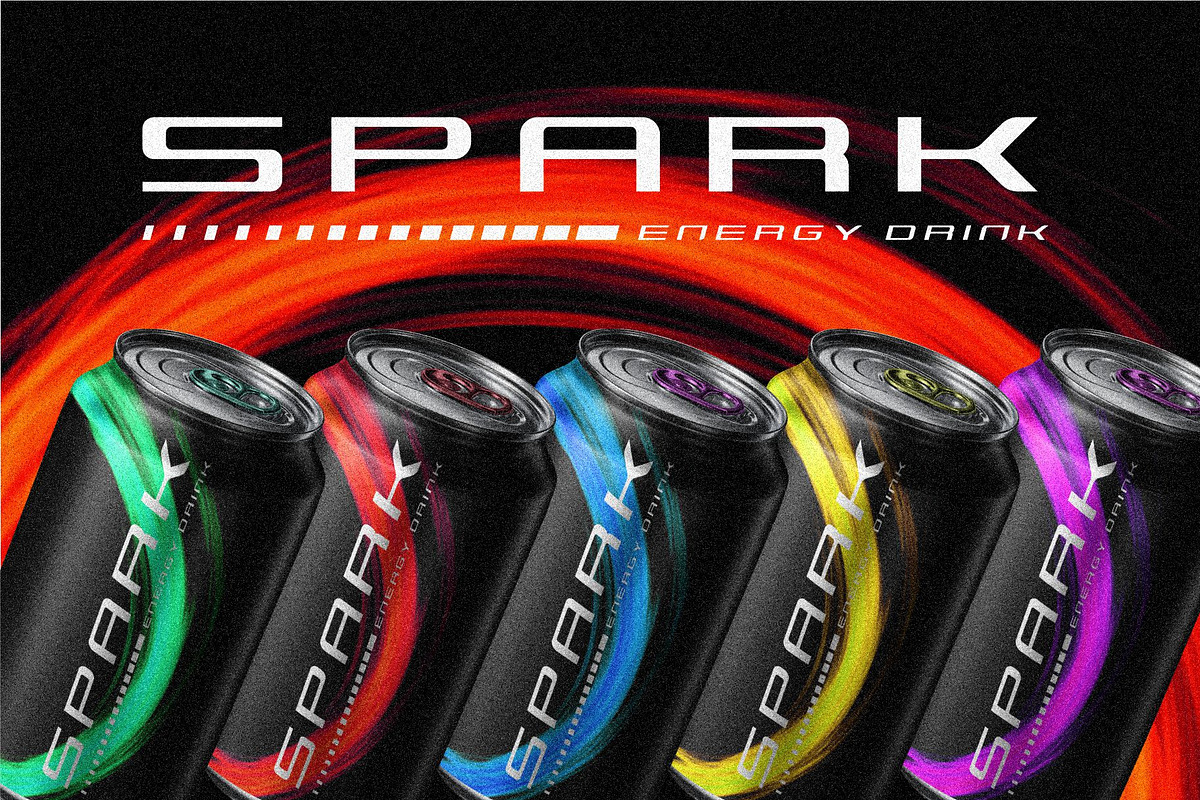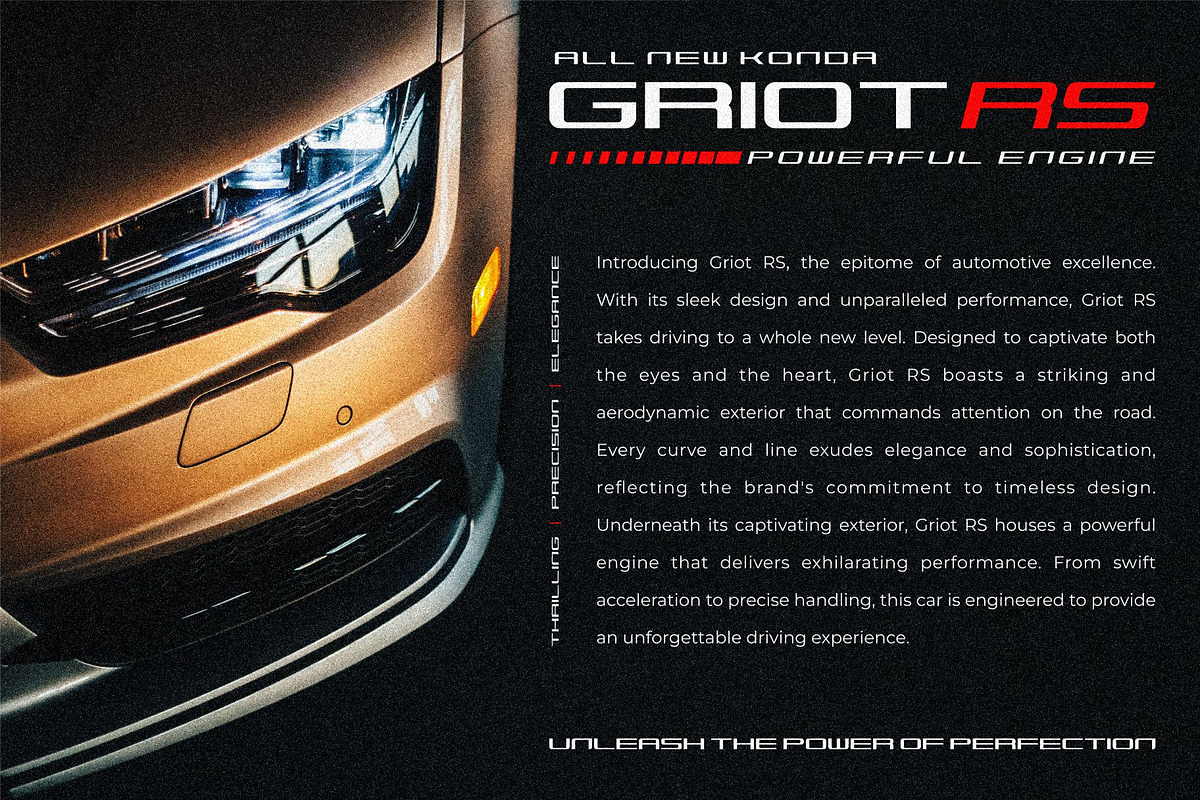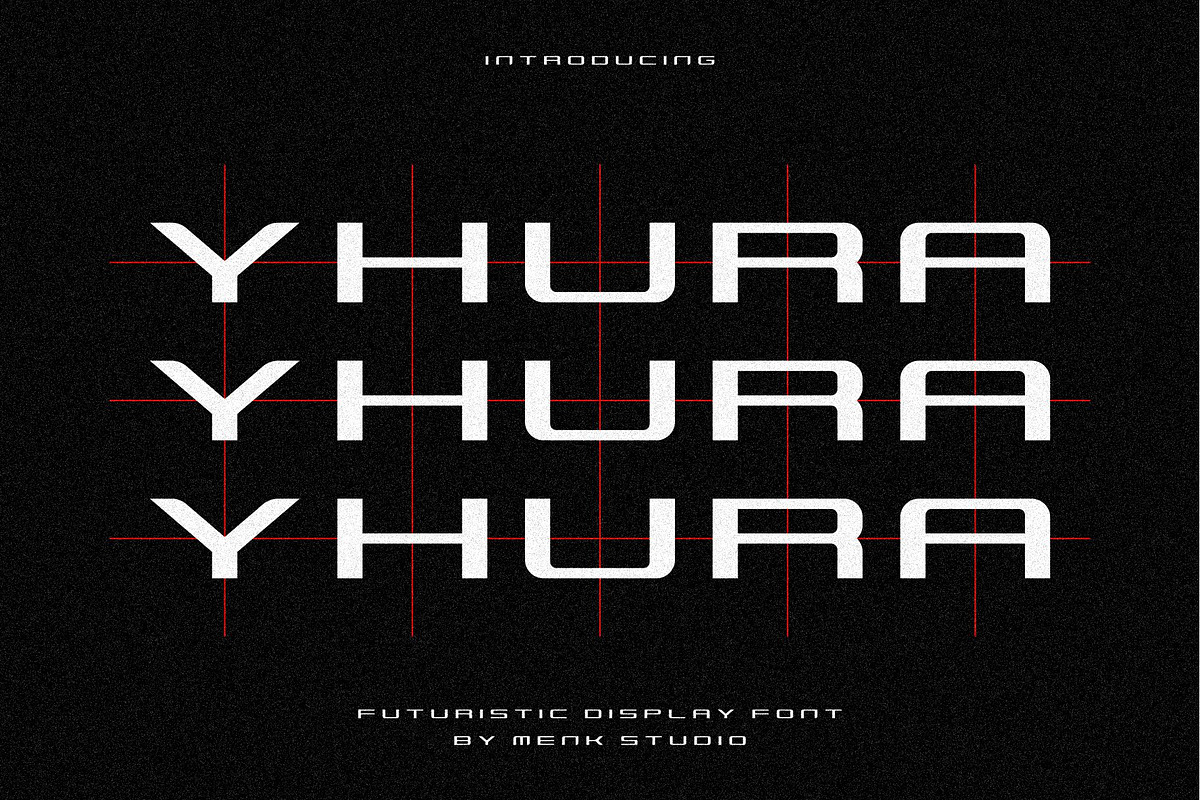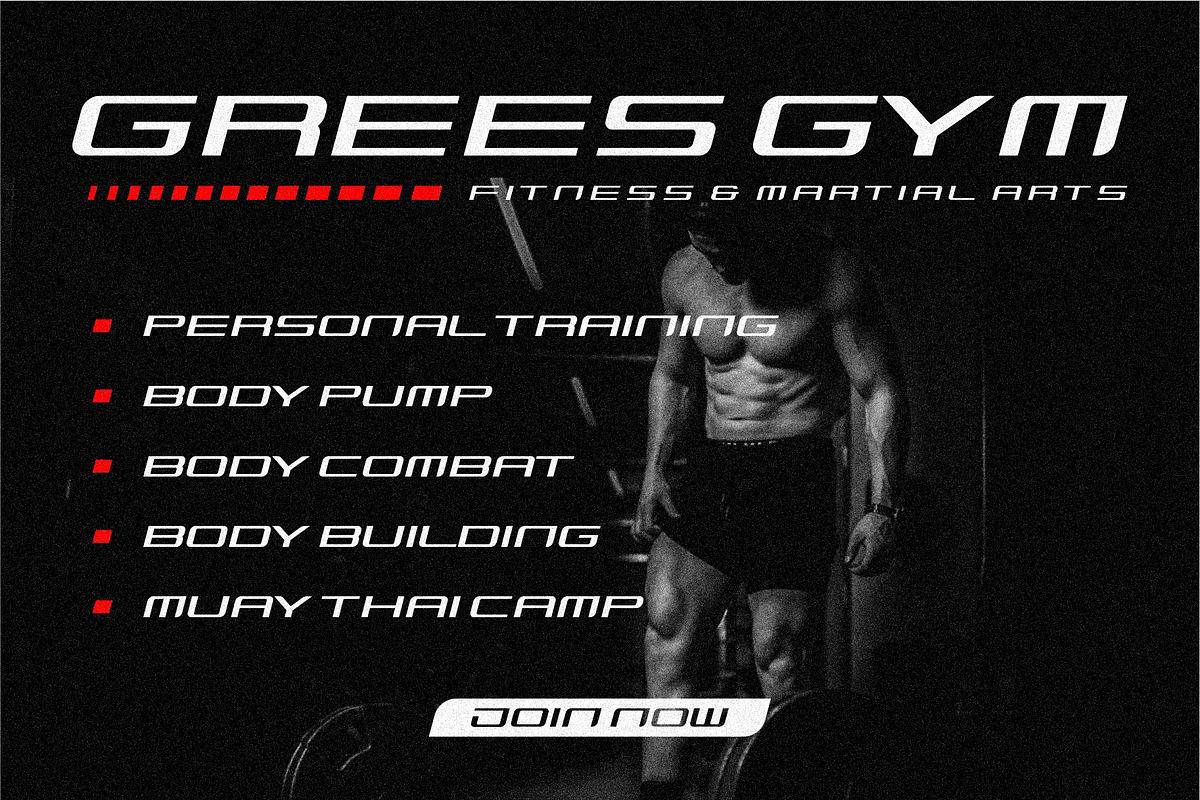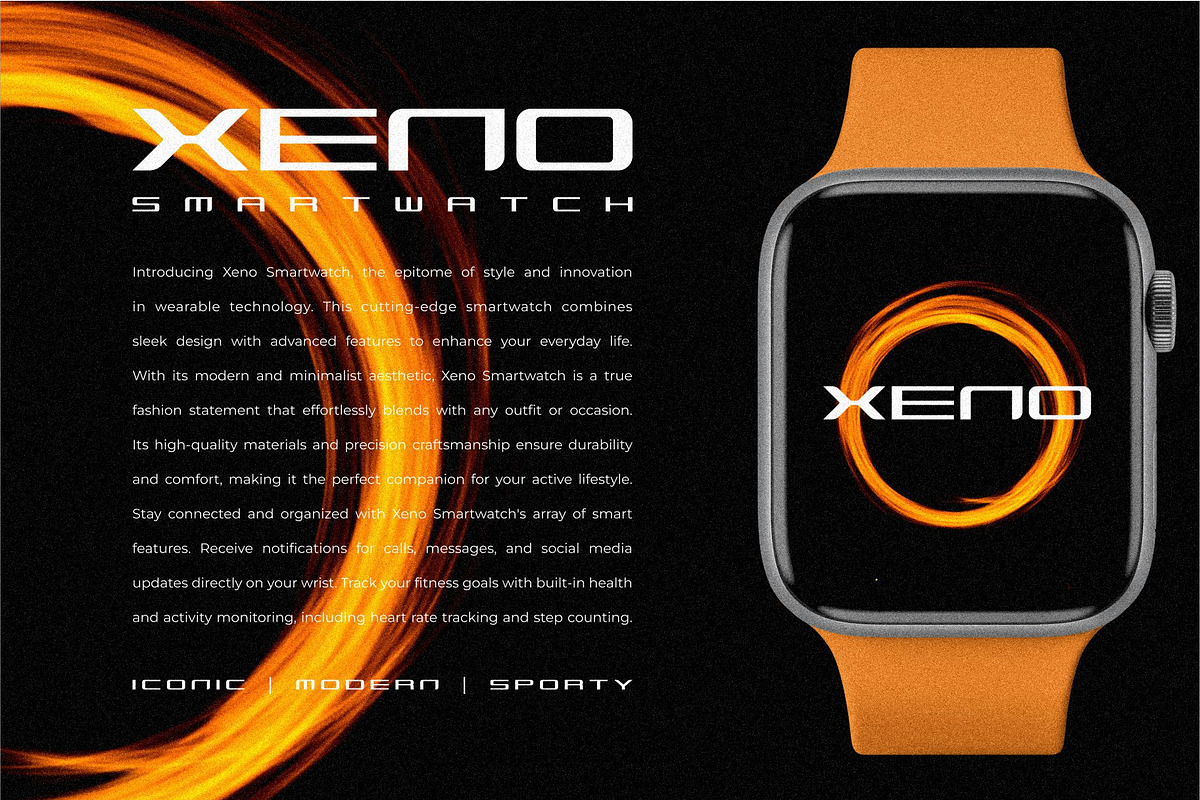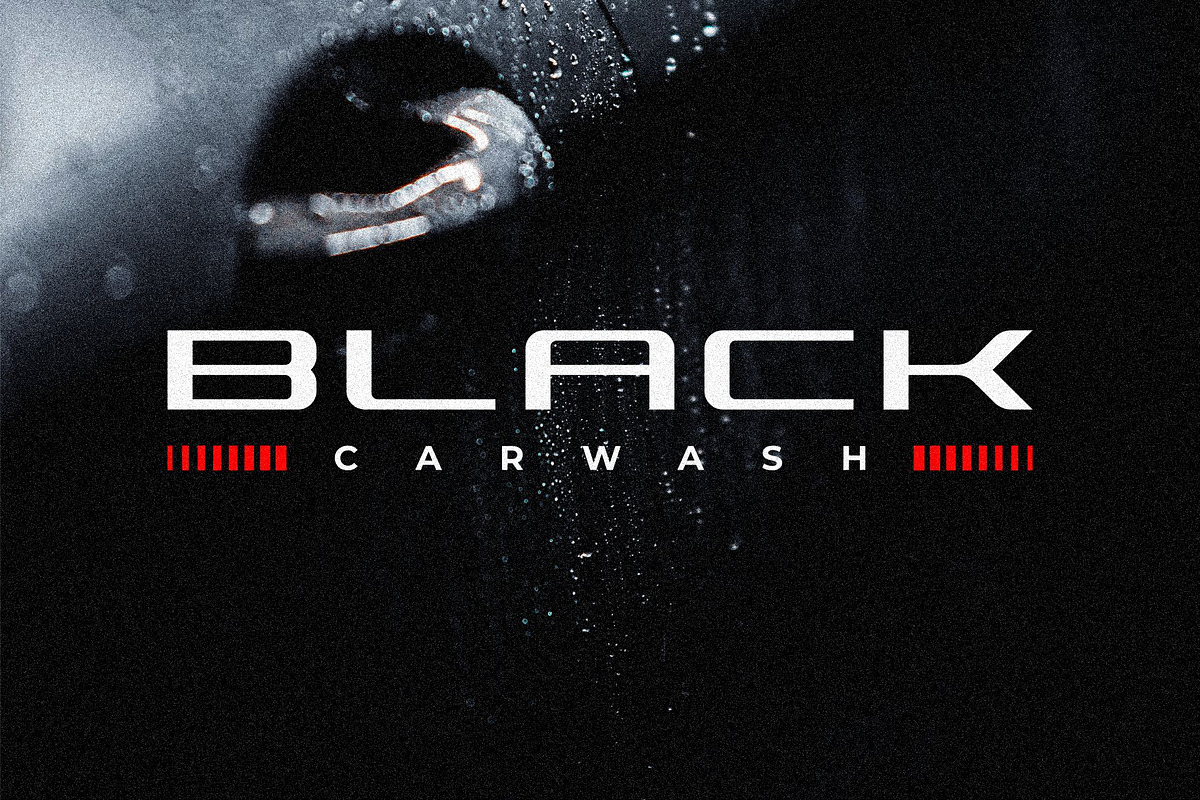
Yhura - Futuristic Display Font
If you are looking for a robotic, futuristic and modern font, meet Yhura
Yhura is perfect for any works, such as card, book title, headline of news, banner, flyer, stationery and many more. It also can be used in large-scale work. This font has All caps characters